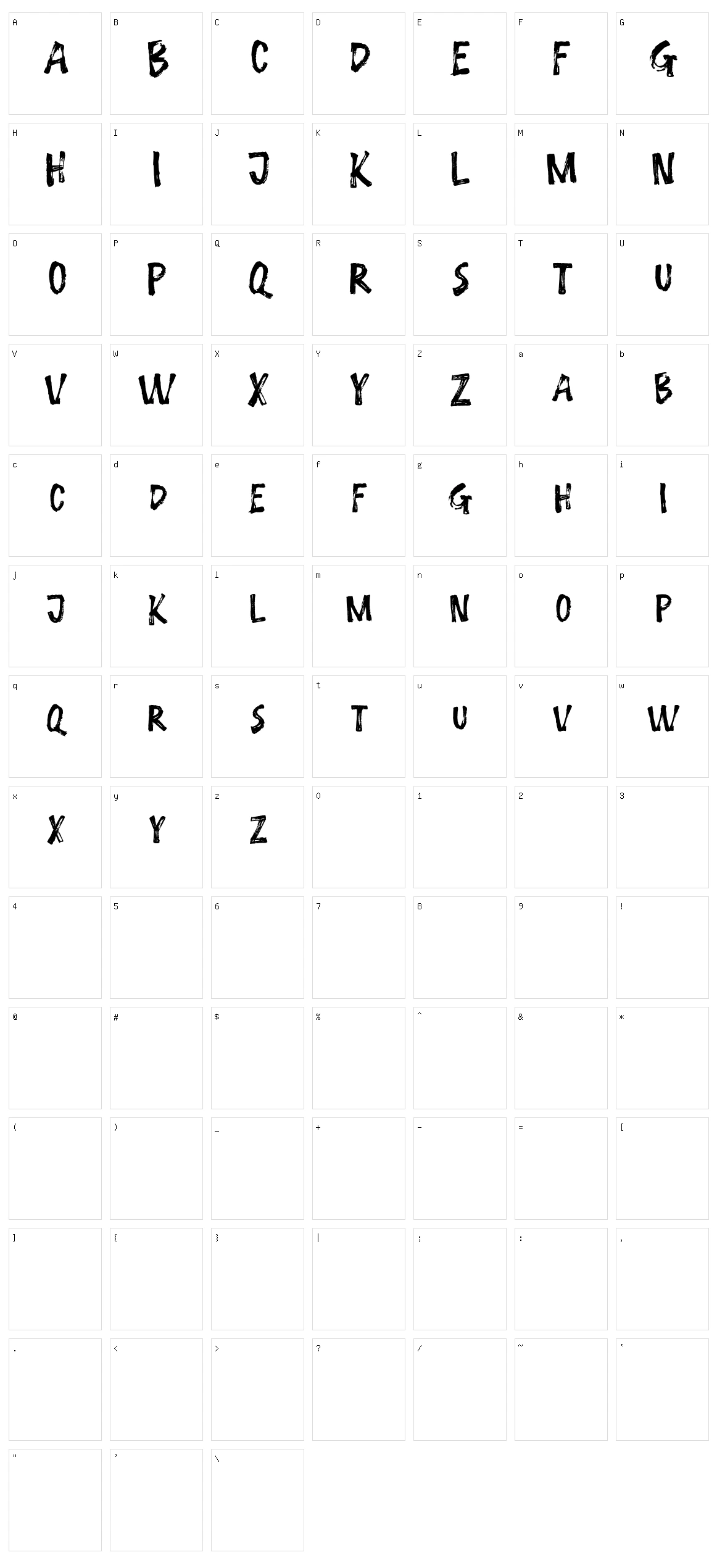
The free font Ghost Walker is carefully designed by InspiraType, showcasing a thoughtful balance of creativity and usability and falls under the Script font style. When you download the ZIP file, it contains only 167.77 KB of font files, making it lightweight and quick to download. Please review the license details below to understand permitted usage and distribution rights. If license information is not available, we recommend using this font for personal projects only or contacting the author directly for commercial usage permissions.